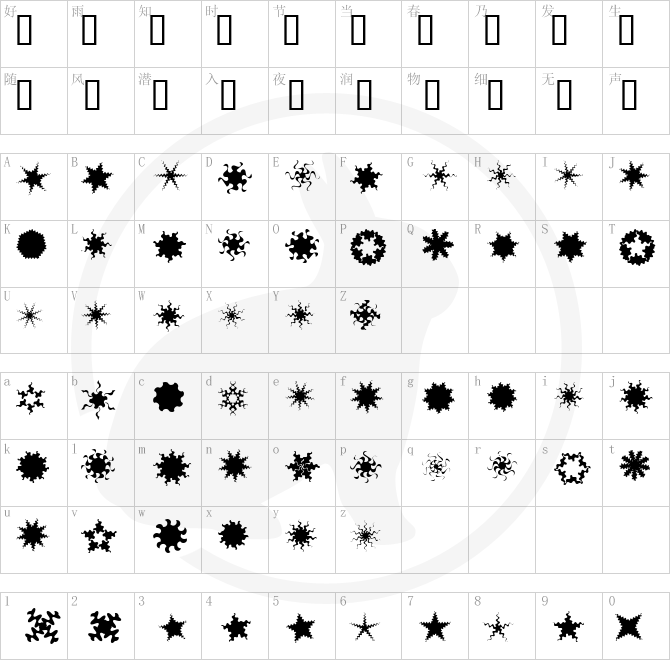
- Font Name:XGalaxyOne
XGalaxyOne.ttf is a very beautiful artistic font, XGalaxyOne.ttf is widely used in the design and printing of various books and pictures,XGalaxyOne.ttf has a strong visual impact,XGalaxyOne.ttf is a commonly used font in newspapers, magazines and books, and is used in posters, e-commerce Poster design, store design, logo design, font design and other fields.XGalaxyOne.